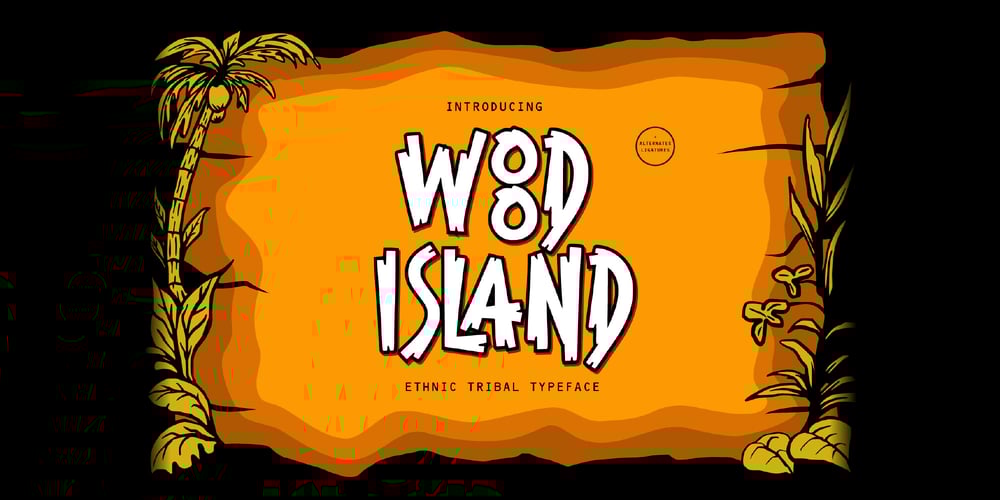
Wood Island
Wood Island font
Wood Island Font Family was designed by Wahyu Aji Prasetyo and published by WAP Type. Wood Island contains 1 styles and family package options. Inspired by traditional ethnic feel and visuals. Great for fun and casual thematic visuals, games, logos, branding, products, campaigns, events, seasonal promotions, traditional concepts, explore different sides of your brand using wood island font.